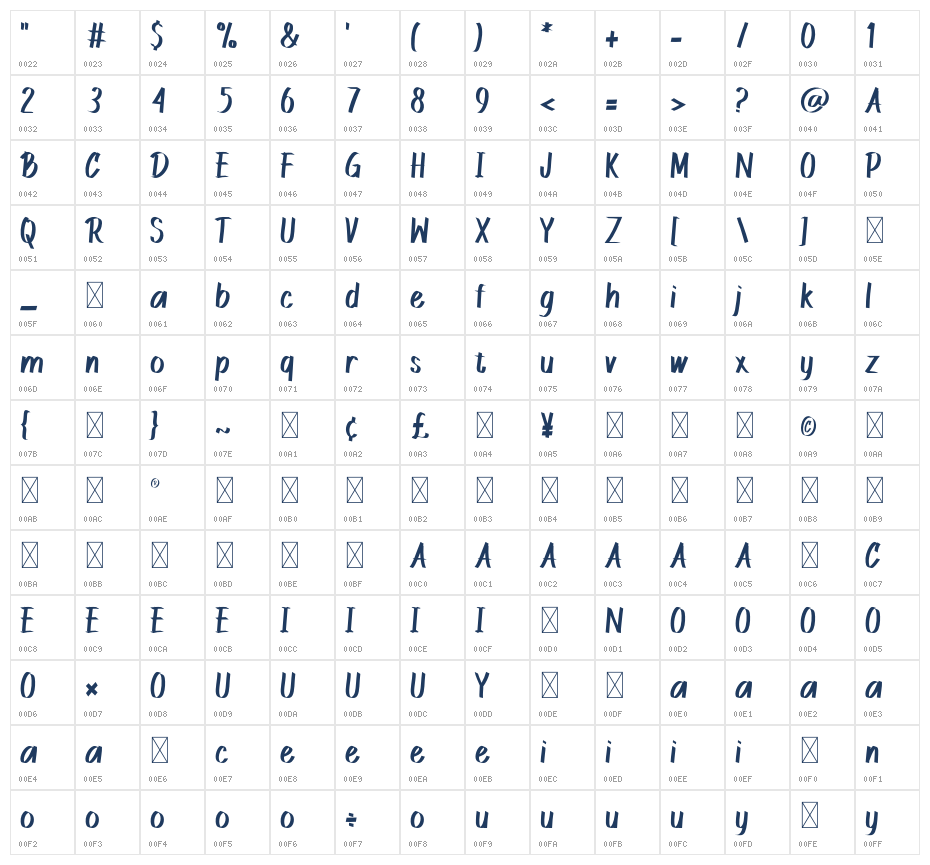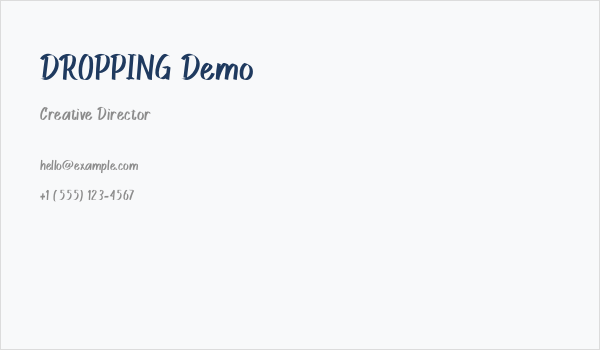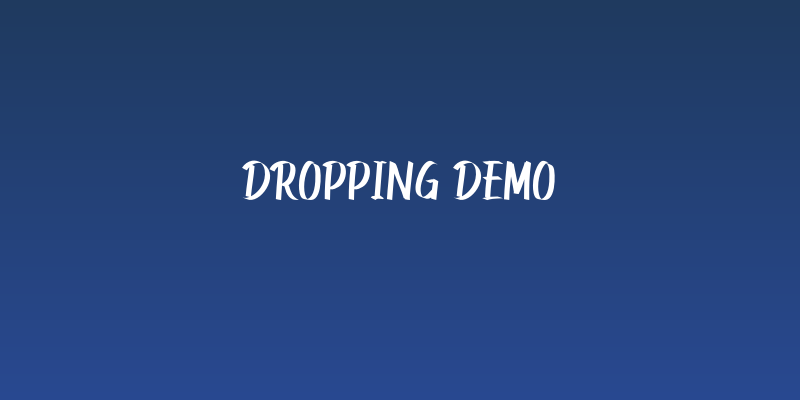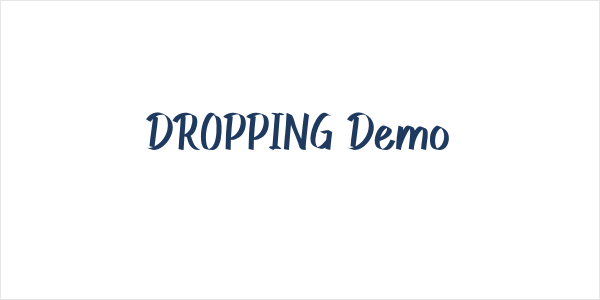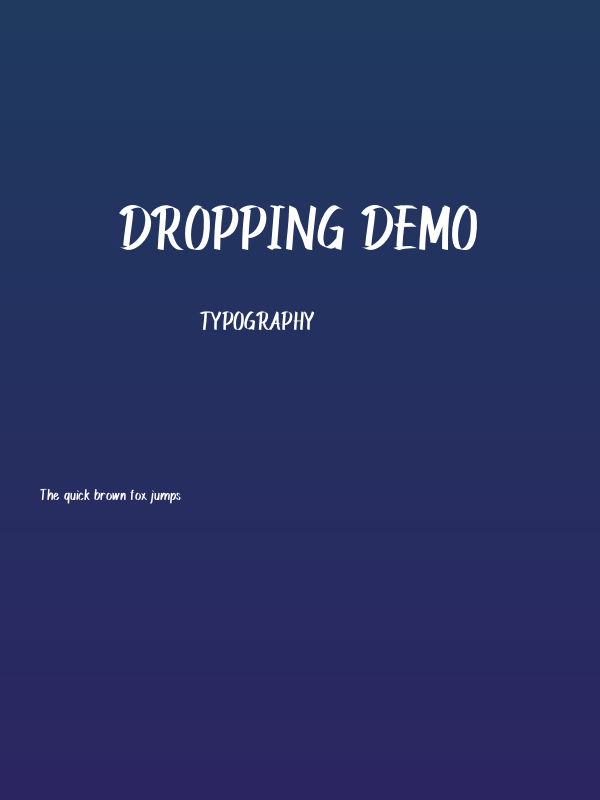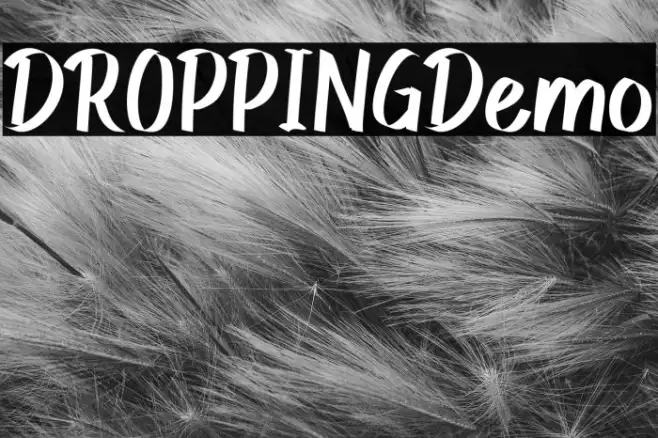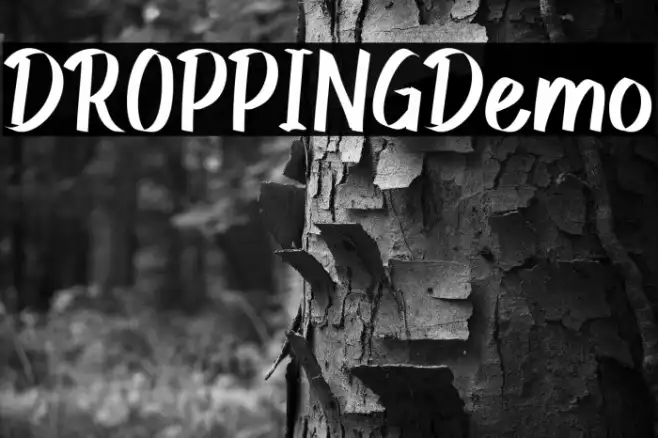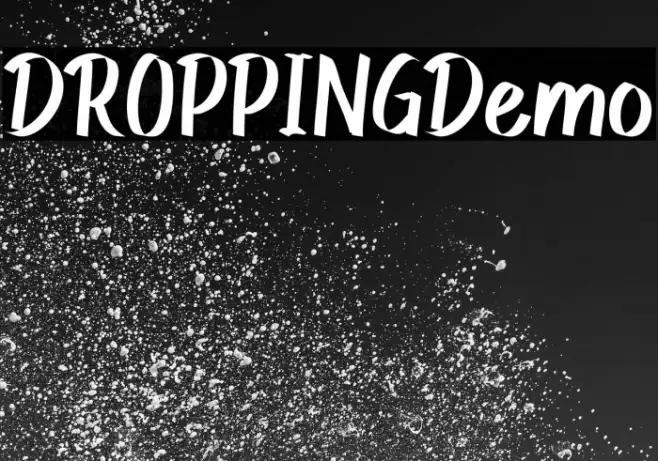
DROPPING Demo Font
DROPPING Demo Description
A playful, handwritten style font with a casual and dynamic appearance, featuring varying stroke widths and a slightly irregular baseline.
| Overall Style | Casual, Playful, Handwritten |
| Use Case | Headlines, Body text, Logos, Invitations |